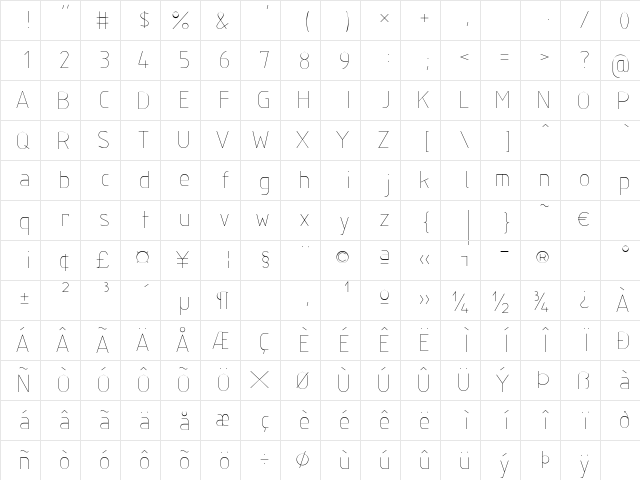
ISOCT Regular
Design Context for ISOCT Typeface
ISOCT takes a measured approach to typography — its balanced proportions and neutral character make it a reliable workhorse for both digital and print work.